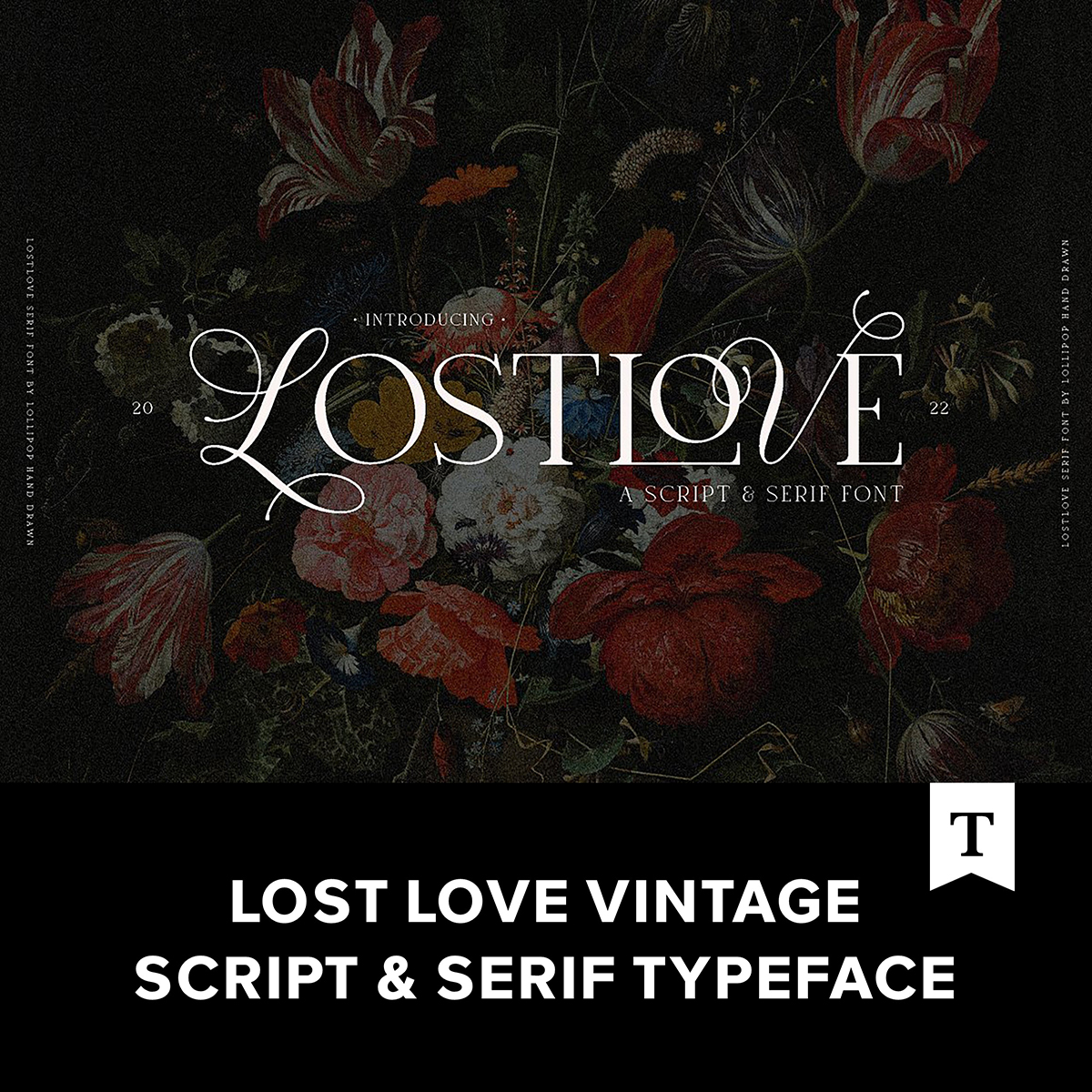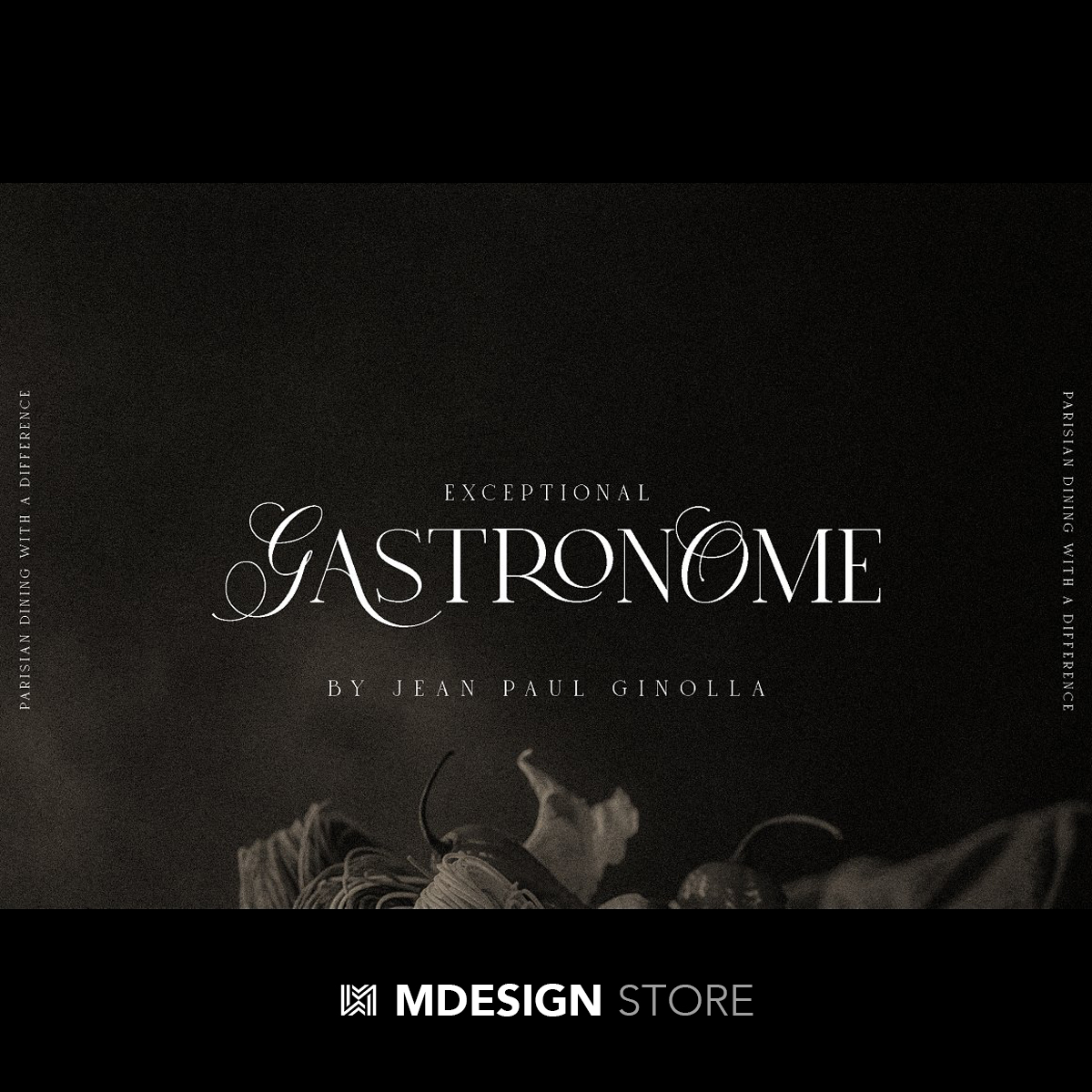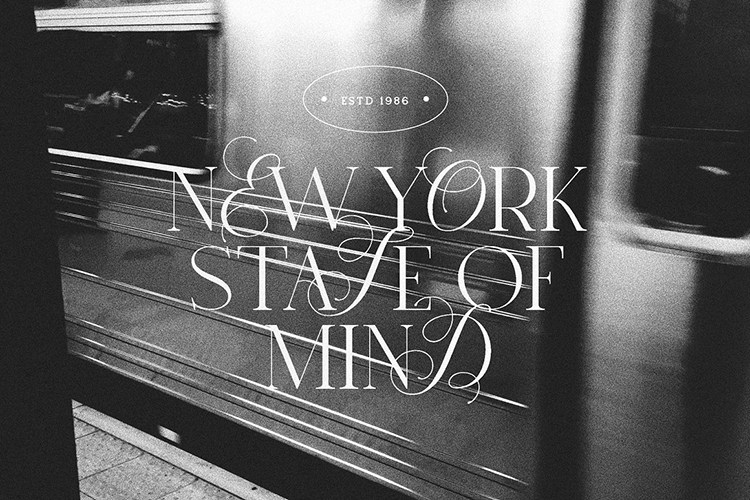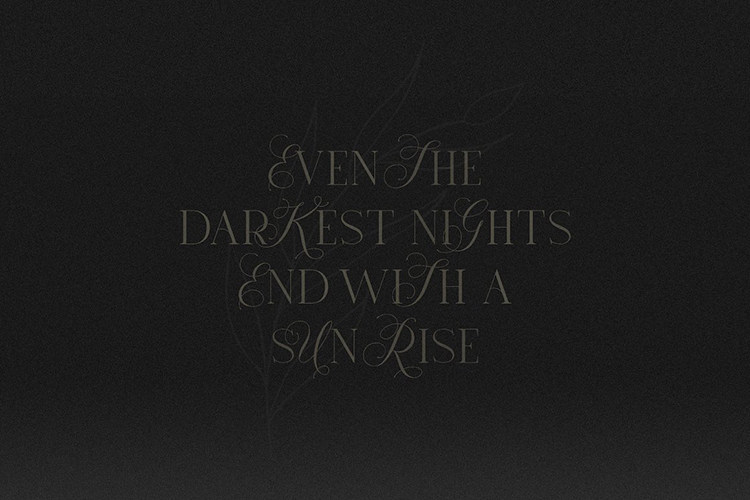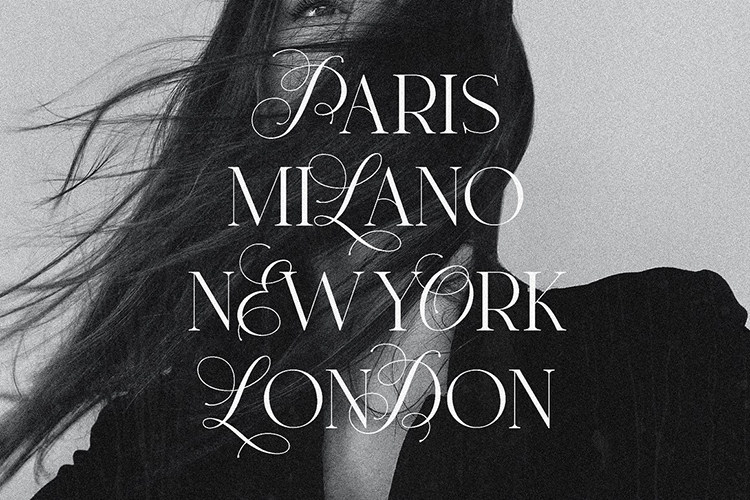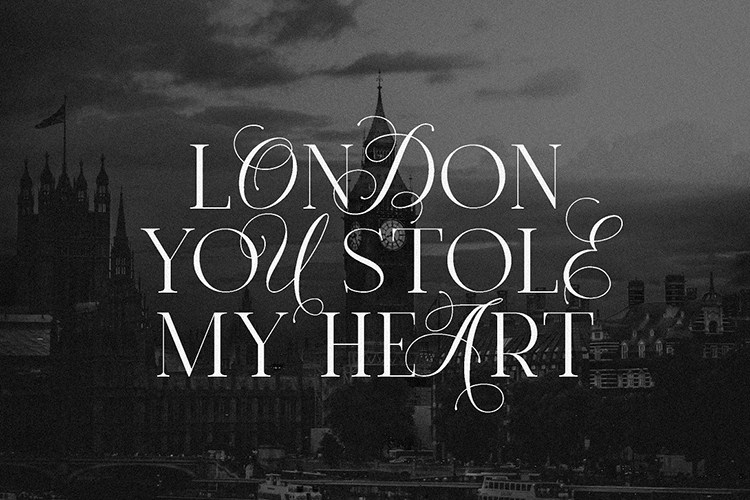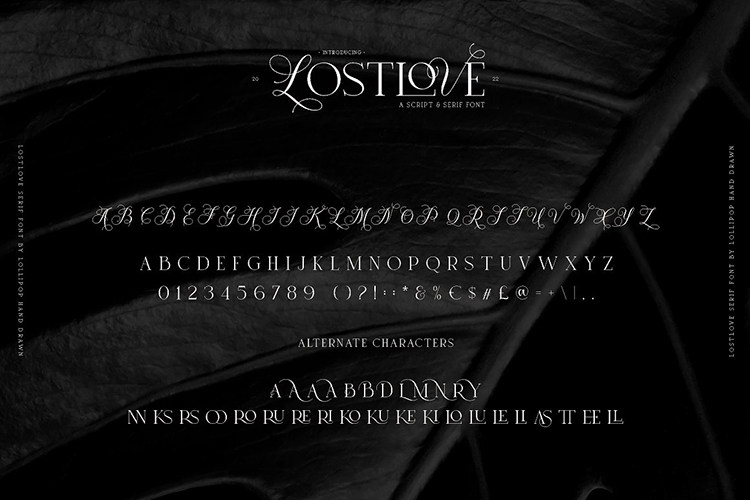
Elevate your design projects with this elegant serif typeface featuring graceful calligraphy and refined decorative flourishes.
Elevate your design projects with this elegant serif typeface featuring graceful calligraphy and refined decorative flourishes. Designed for modern creatives, this font is ideal for wedding invitations, branding logos, event titles, and other high-end design needs.
This typeface blends classic charm with modern elegance, making it perfect for romantic or luxury-themed projects. Each character is thoughtfully crafted to provide sophisticated curves and smooth strokes, ensuring your designs stand out with timeless beauty.
Stylish serif font with decorative calligraphy accents
Ideal for weddings, branding, logos, and editorial design
Elegant and modern aesthetic with a romantic touch